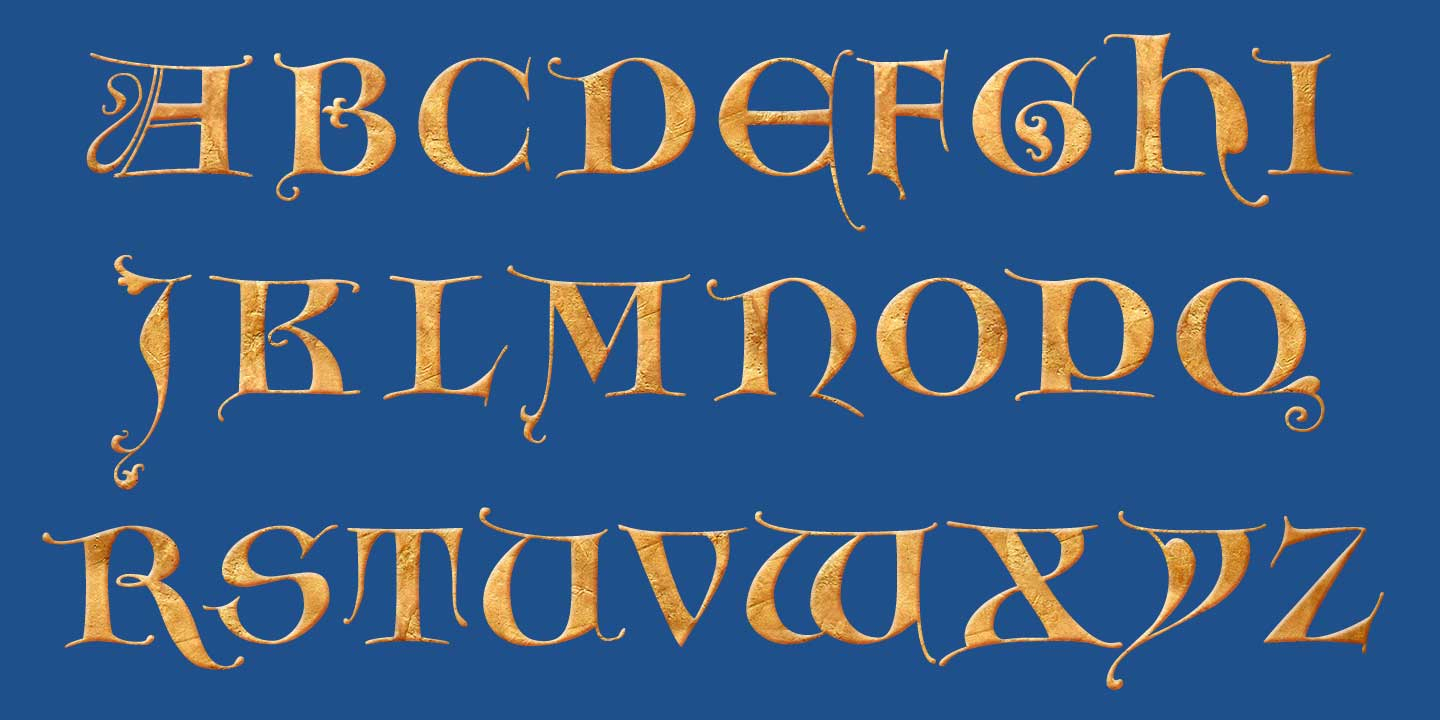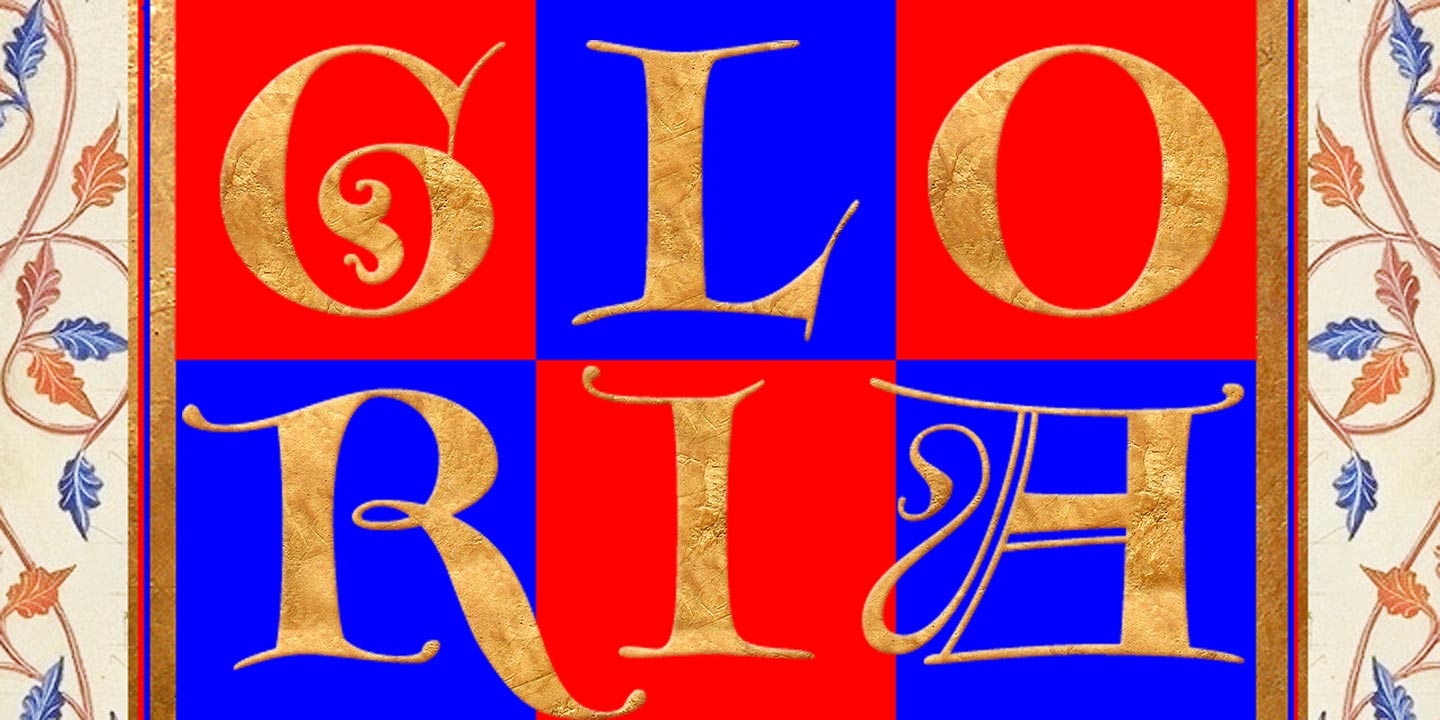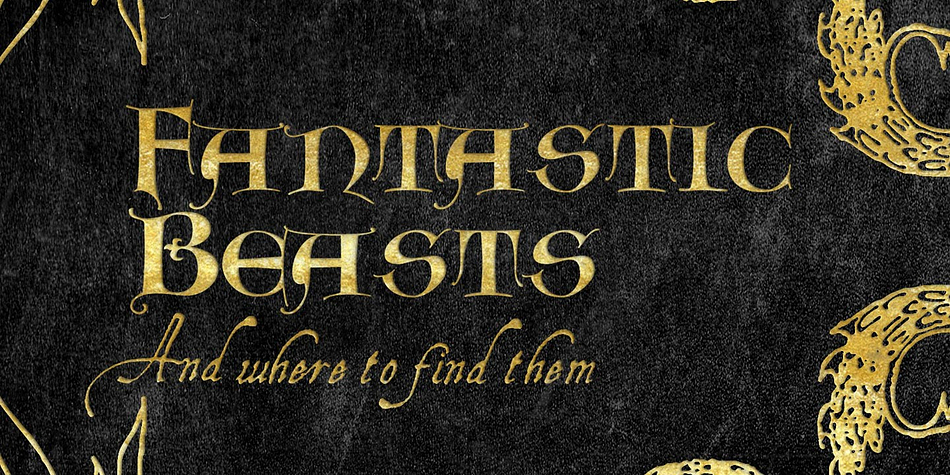
Goudy Lombardy is a monograms and historical font published by CastleType.
Based on drawings of Medieval versals (capitals used at beginning of verses in manuscripts) by Frederic W. Goudy. Works beautifully as initials with Goudy Text CT. Uppercase only, no numerals or punctuation; several letters have alternates. Framed, inversed caps are also included.
This version of Lombardy Capitals is purposely less regular and clean-cut than some available to maintain a more hand-drawn look similar to the irregularities that would be found in a Medieval manuscript. The alternates help contribute to that look.